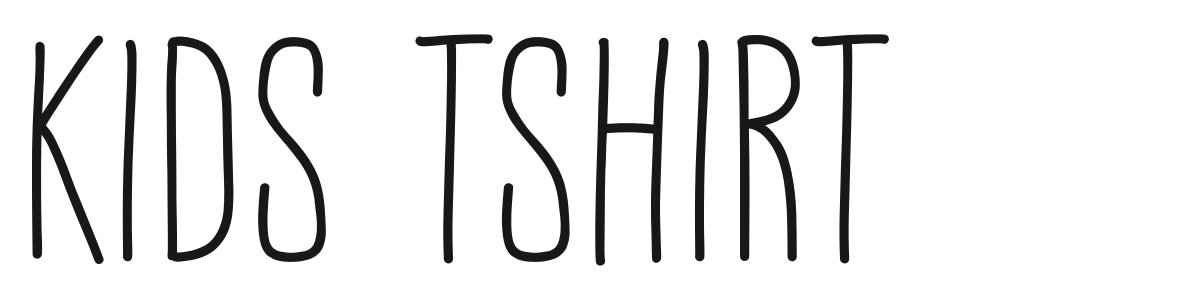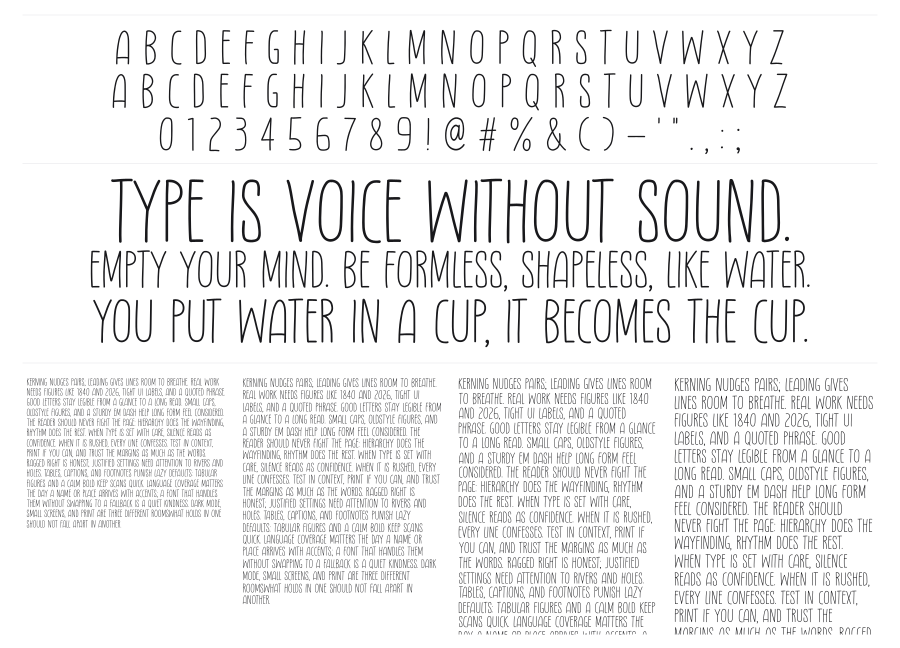
Kids Tshirt
Kids Tshirt is a tall, condensed hand-drawn sans with thin, slightly wobbly strokes that feel like they were sketched with a fine-tip marker. The irregular line quality gives it a crafted, personal charm without sacrificing legibility at headline sizes. It lands naturally on children's apparel, craft packaging, and any project that wants a playful, handmade touch.